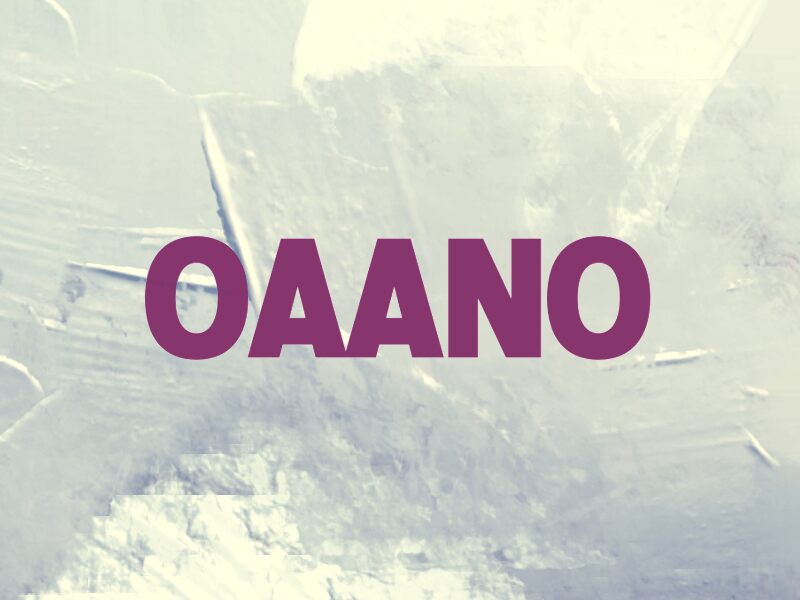
Oaano font is a free sans serif font that embraces clarity through simplicity and clean forms while bringing out the beauty of each and every single character. The professional, modern character of the font, designed by wep, carries a versatile tone within itself allowing it to adapt to various designs while adding its own special charm. Distinct yet comfortable to the eye, the font will help you develop clear UX/UI projects that are necessary to a business’s success.
Everything from branding projects, logotypes, and packaging/poster designs to labels, apparel designs, digital designs, stationery, and magazine covers will gain a professional modern tone with a striking display. Pair it up with futuristic art to see the magic that can unfold.
Oaano is a captivating free font that offers a unique blend of modern and classic design elements, perfect for a variety of projects. This versatile typeface is great for both digital and print applications, making it an excellent choice for branding, advertising, and creative designs.